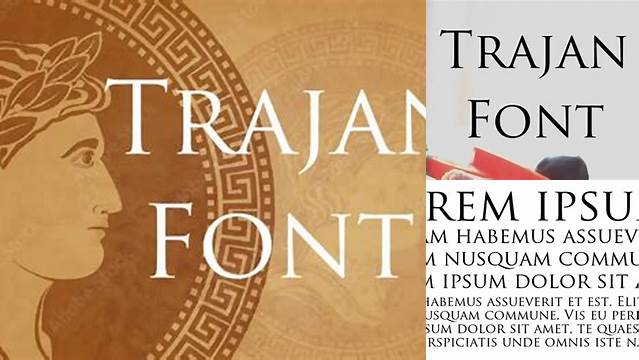
What is Trajan Font?
Trajan font is a serif typeface designed by Carol Twombly in 1989. It's inspired by the inscription on Trajan's Column in Rome, dating back to 113 AD. The font's elegant, classical appearance has made it a favorite for a wide range of design applications. It is well known for its clean lines, excellent readability, and historical roots. It is a must-have for any designer's font library. The font family typically includes a regular weight, but other variations like bold and italic versions are available. It’s used extensively in headings, logos, and other design elements where a touch of sophistication and history is desired. Trajan is especially effective in conveying a sense of authority, tradition, or timelessness, making it perfect for projects ranging from movie posters and book covers to high-end branding and editorial design. When you see this font in action, you immediately recognize its classic appeal. Trajan offers a unique balance of simplicity and elegance. This makes it highly versatile across different design contexts. Designers love Trajan because it is both visually appealing and highly functional. The font's influence can be seen everywhere, from corporate identities to historical recreations. You will find it in numerous places, from Hollywood movies to everyday branding materials. It seamlessly blends with different styles and can make any text appear sophisticated. If you are seeking a font that commands attention and adds an element of refined style, Trajan is worth considering. Remember that it is not just a font; it’s a statement of timeless design. It stands out because of its unique historical inspiration and versatile application across various design projects. The enduring appeal of Trajan lies in its ability to communicate clarity, sophistication, and a sense of historical depth. It is one of the most recognizable typefaces of all time.
History and Inspiration
The history of Trajan font is fascinating, directly influenced by the Roman Empire's architectural heritage. The font is modeled after the lettering found on Trajan's Column in Rome. This iconic monument features exquisitely carved inscriptions celebrating Emperor Trajan's victories. These inscriptions are renowned for their perfect proportions and elegant letterforms. Carol Twombly's design of the Trajan font captured the essence of these ancient letterforms, translating their timeless appeal into a digital font. The original inscriptions on Trajan’s Column were painstakingly crafted by skilled artisans. The details were precise and artistic. The font aims to replicate this level of artistry and detail. This connection to historical artistry gives the Trajan font a distinct character, setting it apart from other typefaces. The inspiration from the past makes the font feel both familiar and noble. The choice to base a modern font on ancient inscriptions reflects a deep appreciation for classical design principles. This inspiration influences the font's enduring popularity and wide usage. It serves as a tribute to the aesthetic values of Roman times. The goal was to create a typeface that would not only look beautiful but also maintain the legibility and functionality of the original inscriptions. This way, the designers made the font appeal to many people. The enduring appeal of Trajan lies in its direct link to history. It is a great choice to evoke a sense of historical significance or classic design. It connects modern users with the artistry of ancient Rome.
Characteristics and Features
The Trajan font is characterized by several distinctive features that make it stand out. It has elegant, clean lines that contribute to its classic look. The serifs, or small decorative strokes at the ends of the letters, are sharp and well-defined, enhancing readability and sophistication. The font typically has a moderate contrast between thick and thin strokes, which gives it a balanced appearance. Trajan's letterforms are generally wider than those of many other fonts. This gives the text a sense of presence and authority. The spacing between the letters is carefully adjusted to ensure that it looks balanced. The font’s versatility allows it to be used in various sizes and contexts. Trajan's legibility is exceptional, even at small sizes. It is an excellent choice for both headlines and body text. The font has several weight variations. It allows designers to create different levels of emphasis and visual interest. The font's historical inspiration adds a layer of meaning and prestige to any project. The design makes it suitable for serious and professional applications. The balanced design and superior readability are important. They make Trajan a popular choice among designers. Whether used in print or digital media, the font maintains its elegance and impact. This is why the font remains a favorite in the design community. The unique features of Trajan make it a versatile and attractive choice. The font can convey a sense of timelessness. It is also easy to read.